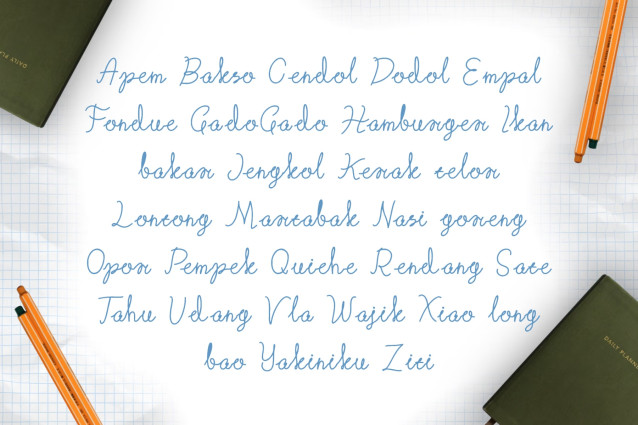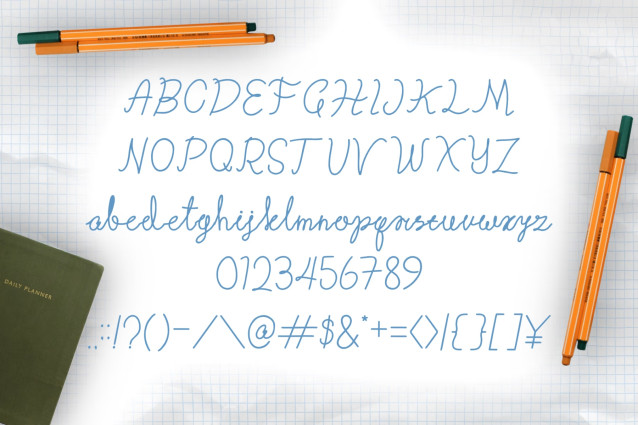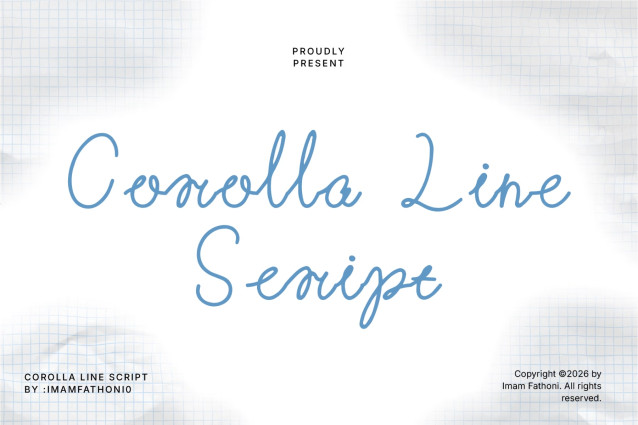
Corolla Line Script Font
Add airy elegance, gentle handwritten grace, and effortless personal charm to your layouts with Corolla Line Script! Designed as a thin monoline script font, it features tall looping ascenders, soft cursive connections, and a relaxed, notebook-style rhythm. Its light silhouette brings a cozy, personal touch to digital planning and minimalist graphics.